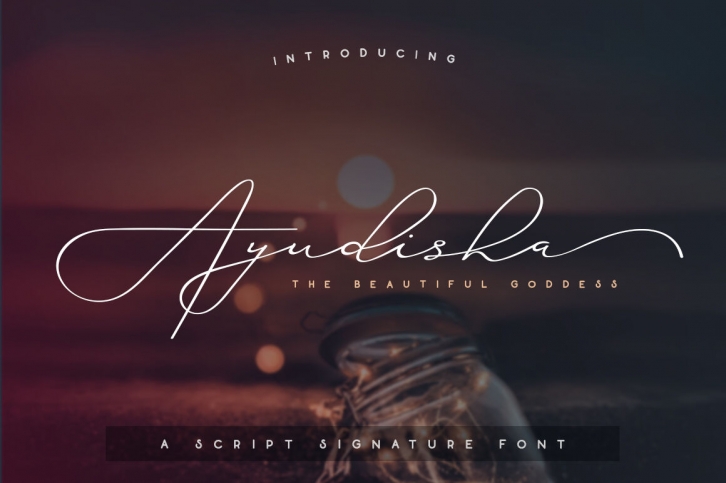
Ayudisha Font – A Script Signature Font
Ayudisha means the beautiful goddess in Javanese. Ayudisha Font comes with 400+ glyphs with many features. It easy to use, clean, modern, elegant and stylish and yet still professional.
Ayudisha Font is the best choice for signature, signature logo design, watermark on photography, quotes, album cover, business card, and other design projects. Ayudisha Font will elevate your work more into the highest level.
Ayudisha font has many features:
60+ Ligatures
Stylistic Alternates Sets
Alternates Lower Title Sets
Alternates Lower Swash Sets
Multilingual Support
Easy to Use